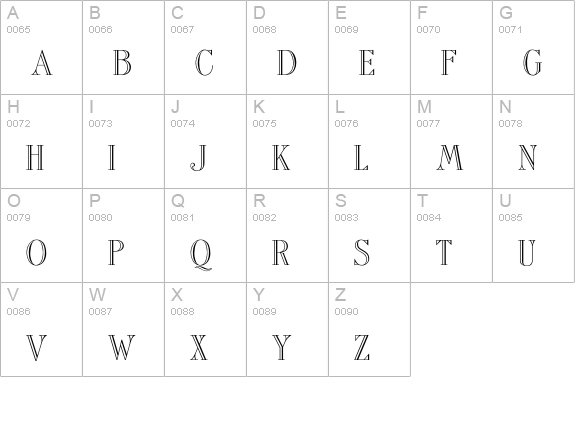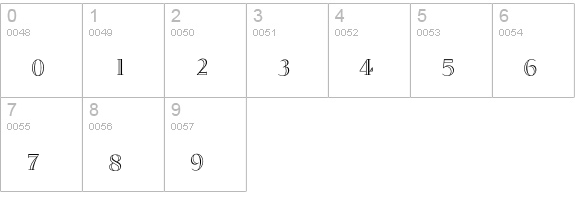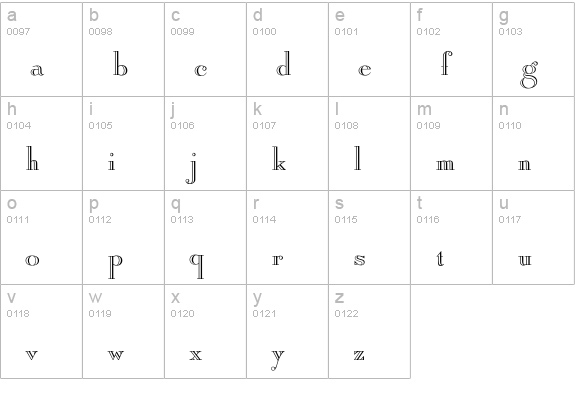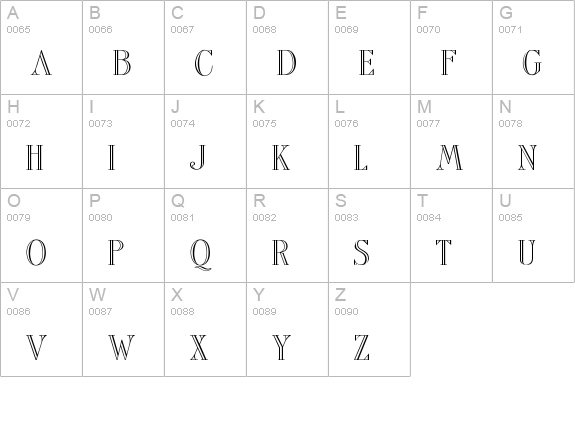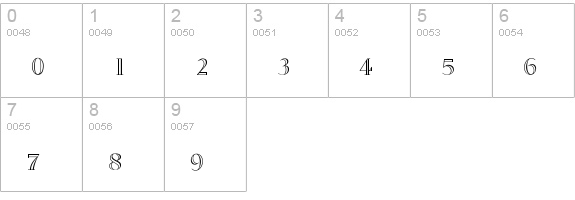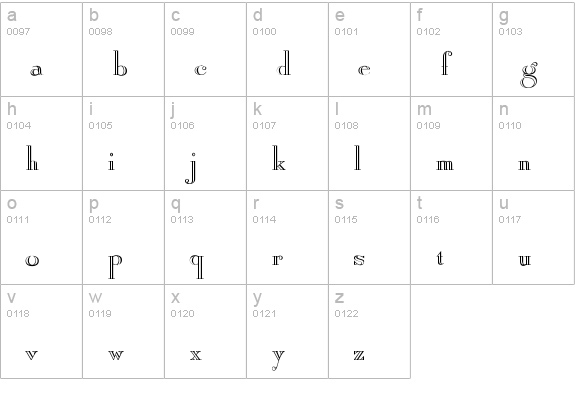
OPTIAmadeus-Open Font Details
The OPTIAmadeus-Open font is a stylish and versatile typeface that is perfect for a wide range of design projects. This modern font features clean lines and a sleek design, making it ideal for both print and digital applications. One of the best things about the OPTIAmadeus-Open font is that it is completely free to download. Whether you are working on a personal project or a commercial design, you can use this font without any restrictions. You can easily access this font for free on FontsMarket.com, where you can download it and start using it in your projects right away. With its elegant and contemporary style, the OPTIAmadeus-Open font is sure to make a statement in any design. Add a touch of sophistication to your projects with this beautiful and free font today!